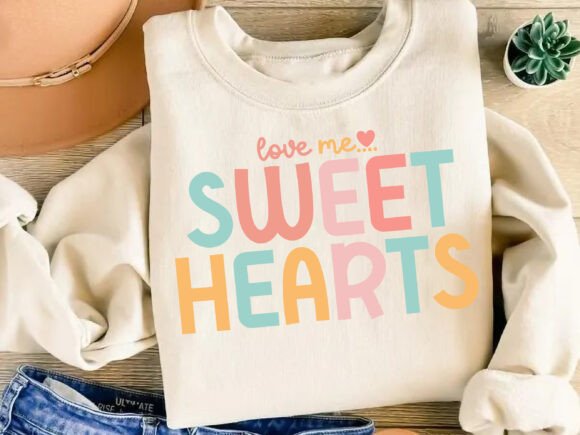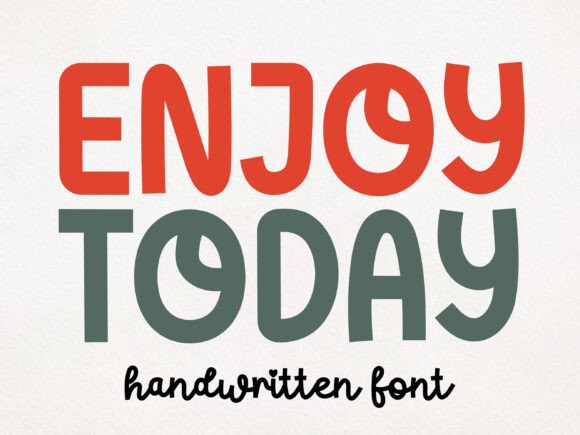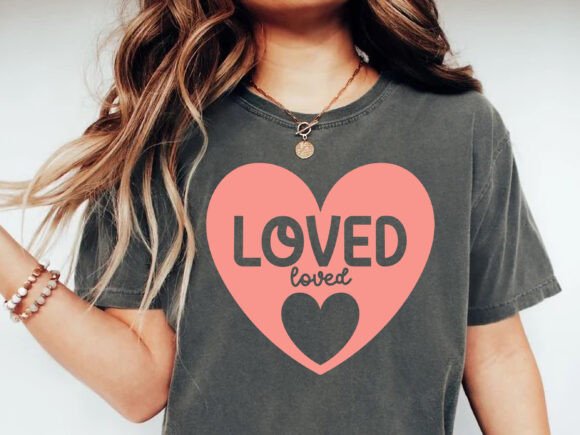
Introduction to Loved Duo Font
Have you ever stumbled upon the perfect font pairing for a creative project, and it instantly makes your design come alive? For designers, finding that elusive combination of style and charm can be a game-changer. For Valentine’s Day and other special occasions, we’re excited to share a new design resource that’s sure to capture hearts: the Loved Duo Font.
This enchanting font pairing is more than just a pretty face – it’s a high-quality design asset that adds a touch of handwritten elegance and warmth to your designs. With its perfect balance of romance and playfulness, the Loved Duo Font is ideal for crafting heartfelt messages and eye-catching designs.
Key Features of Loved Duo Font
- High-Quality Design: The Loved Duo Font is a beautifully crafted, high-quality design resource ideal for creative projects.
- Transparent Background: This font features a transparent background, allowing for seamless integration into various design elements.
- Large Character Set: The Loved Duo Font includes a large character set, including uppercase and lowercase letters, numbers, and punctuation marks.
- High Resolution: The font is designed at 300 DPI, making it suitable for high-resolution print and digital projects.
Honest Review: Loved Duo Font
I recently had the chance to dive into the Loved Duo Font and I must say it’s been a delightful experience. The font is perfect for those looking to add a touch of elegance and sophistication to their creative project. ✨ The high quality of the font is immediately noticeable, with crisp lines and a smooth texture.
Here are some of the key features I enjoyed:
One limitation I noticed is that the font doesn’t come with a lot of customization options. ⚠️ While it’s still a great choice for many projects, designers who need a high degree of flexibility may find themselves limited by this font.
Overall, I’d highly recommend the Loved Duo Font to anyone looking for a beautiful and easy-to-use design resource. It’s perfect for projects where you want to add a touch of sophistication and elegance without breaking the bank.
To get the most out of the Loved Duo Font, use it in combination with other design elements, such as images and graphics, to create visually appealing and creative projects. Additionally, experiment with different font sizes and colors to add depth and interest to your design.
The Loved Duo Font is ideal for use in a variety of creative projects, including logos, social media graphics, and promotional materials. Its high-quality design and transparent background make it a popular choice among designers and creatives.
Alternatives to Loved Duo Font
The Great Vibes Font is a high-quality, elegant script font ideal for creative projects requiring a touch of sophistication. It features a transparent background and is perfect for designing logos, wedding invitations, or any other project that demands a refined look. When to use: Formal events, luxury brands, or high-end designs. Great Vibes Font offers a more classic feel compared to Loved Duo Font’s modern, handwritten style.
Alex Brush Font is a beautiful, hand-drawn script font that works well for various design projects, including creative publications, advertisements, or packaging. It features a high-quality design and a transparent background, making it suitable for free download. When to use: Creative publications, advertisements, or packaging designs. Alex Brush Font has a more delicate feel compared to Loved Duo Font’s bold, cursive style.